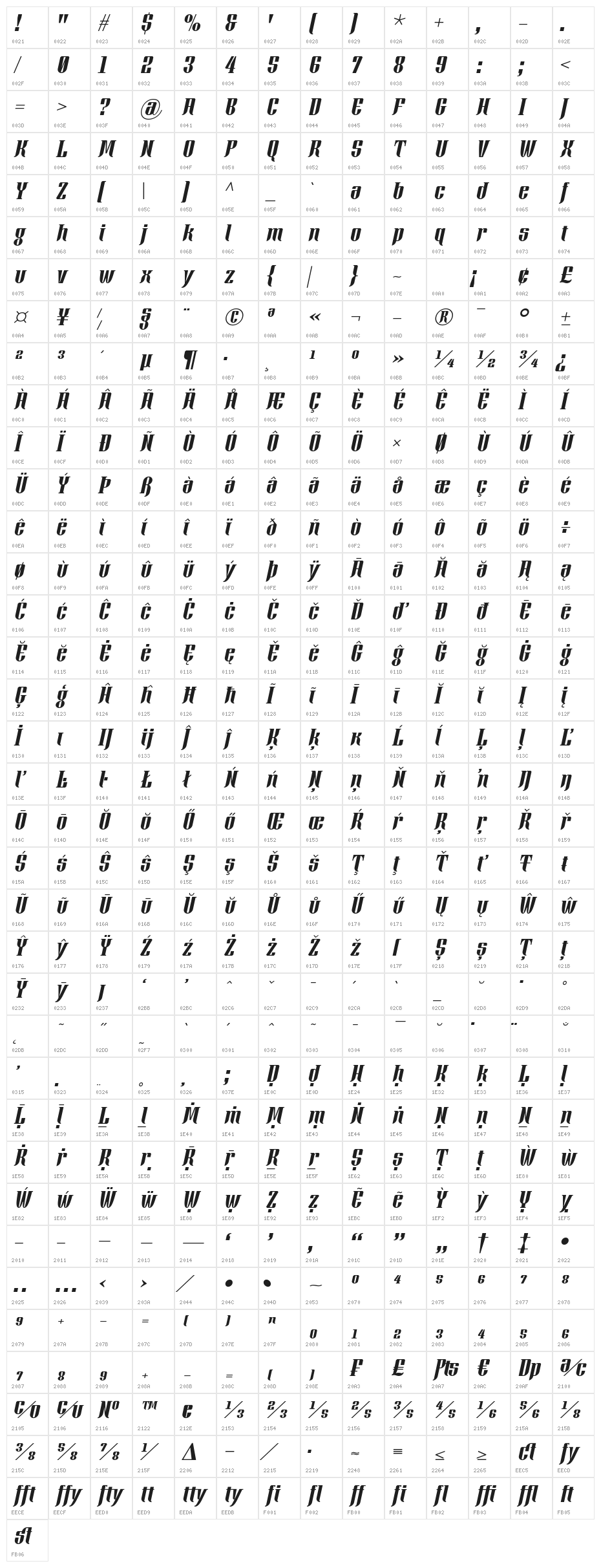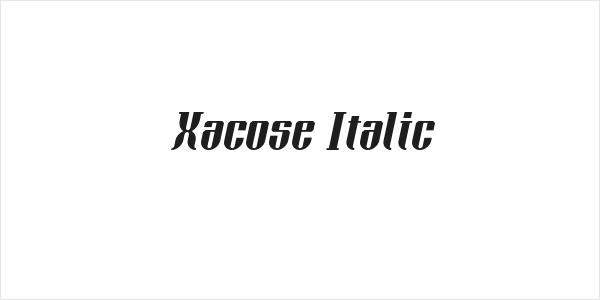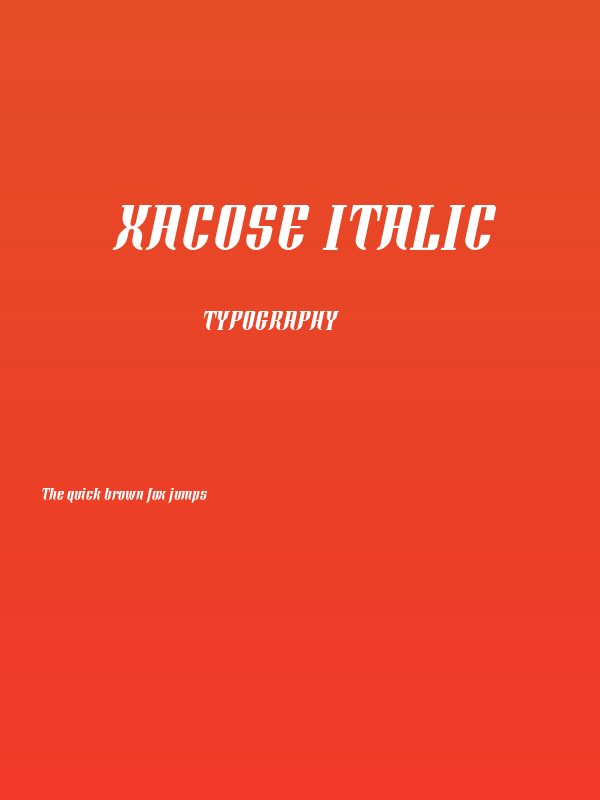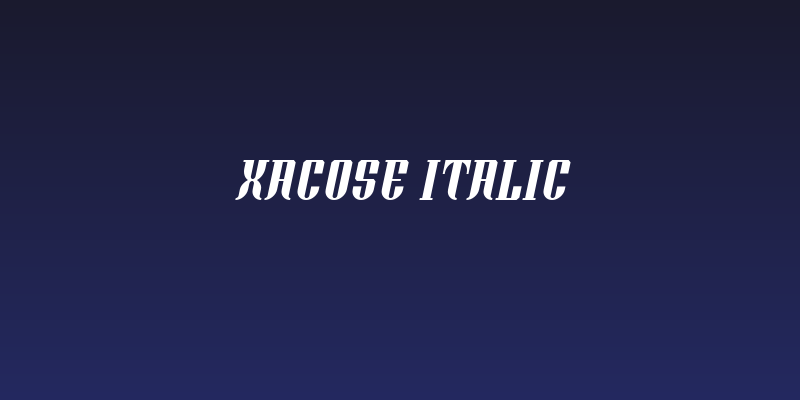
Xacose Italic Font
Xacose Italic Description
This font exhibits a bold and dynamic style with a distinct italic slant, giving it a sense of motion and energy. The characters are sharply defined with a strong presence, making it ideal for attention-grabbing headlines. The uppercase letters are particularly striking, with angular serifs and a consistent stroke width that adds to the font's robust appearance. The lowercase letters maintain the same boldness, ensuring readability while retaining the font's unique character. Numbers and special characters are designed to match the overall aesthetic, providing a cohesive look across all glyphs.